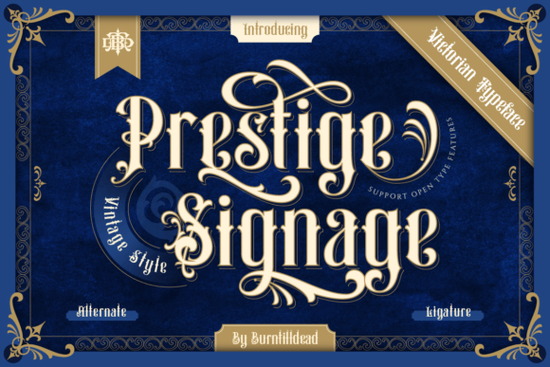
If you're looking for a bold, elegant blackletter font that captures the grandeur of the Victorian era, Prestige Signage Font is a solid choice. It’s designed with timeless appeal in mind perfect for projects that need a classic, sophisticated touch. Whether you’re creating custom labels, book covers, event signage, or branding materials, this font brings a refined feel that stands out without overwhelming your design.
What makes Prestige Signage Font stand out?
Unlike many fonts that lean too heavily into ornate styles, Prestige Signage strikes a balance between drama and readability. The letterforms are strong and structured, with subtle flourishes that hint at historical craftsmanship. You’ll find it works well in both large headlines and medium-sized text, making it versatile across different formats.
The font includes eight alternate characters, which means you can vary your design slightly without switching fonts. This small but useful feature helps prevent repetition in layouts especially helpful if you're designing multiple items like packaging sets or promotional materials.
Plus, there's a free ornament included with the download. It’s not just a decorative bonus it’s something you can use directly in your designs to enhance logos, headers, or borders. No extra graphic editing needed.
How does it compare to other blackletter fonts?
For fans of vintage typography, you might already be familiar with similar options like Porphyria, Cambridge, or Gifter’s. Each has its own personality: Porphyria leans more dramatic, Cambridge feels slightly more formal, and Gifter’s brings a hand-drawn warmth. Prestige Signage sits somewhere in the middle refined, dignified, and slightly less busy than some alternatives.
It’s especially good if you want a consistent look across a brand or product line. Because it’s legible even at smaller sizes, it won’t get lost on merchandise like t-shirts, mugs, or stickers. That makes it a practical pick for print-on-demand sellers and small business owners.
Where can you use this font?
- Book covers – Especially for historical fiction, gothic tales, or literary classics.
- Brand labels – Perfect for craft breweries, handmade soaps, or artisanal food products.
- Event signage – Think weddings, masquerades, or vintage-themed parties.
- Logo design – Great for businesses with a heritage or luxury angle.
- Invitations & stationery – Adds instant elegance to formal or themed cards.
You can also pair it with simpler sans-serif fonts to create contrast like using a clean modern typeface for body text while letting Prestige Signage shine in headings.
Final thoughts
If you’re drawn to old-world charm with a modern edge, Prestige Signage Font delivers reliably. It’s not flashy, but it’s thoughtful designed with care for both aesthetics and usability. Whether you’re a hobbyist working on a personal project or a small business building a visual identity, this font adds class without complexity.